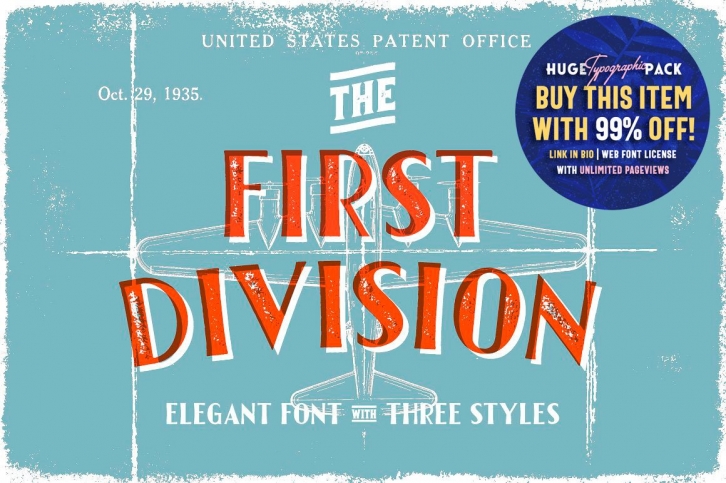
THE FIRST DIVISION
The First Division it's a base elegant vintage font. Continuing the theme of the WWII, I have created a font reminiscent of those fonts that are used in the names of the United States Air Force plane. Perfect style for Headers or Signs, or Logos, Advertising, Apparel Design, Labels, Posters, Package design, Signage, Etc.
Three styles - Normal, Letterpress and Inline.
The First Division also has a few added extras such as "and", "to", "the", "for", "from", "of", "with" and "estd" inside of borders as a discretionary ligatures.